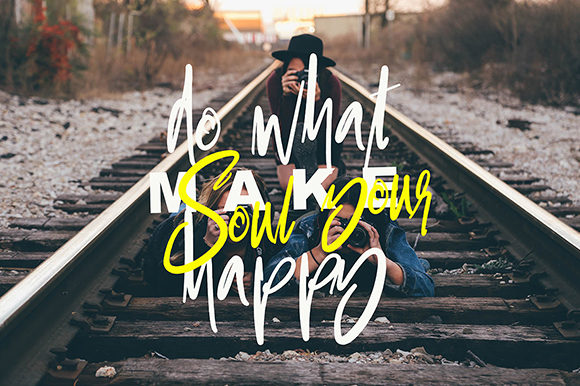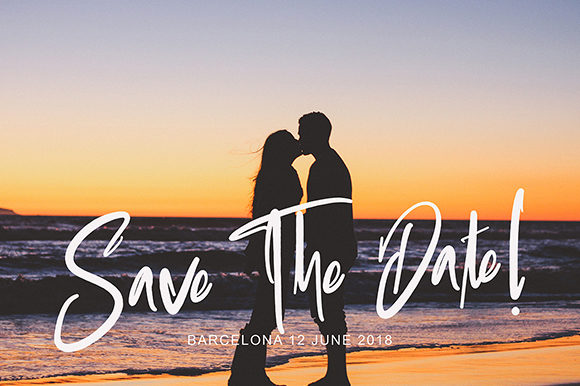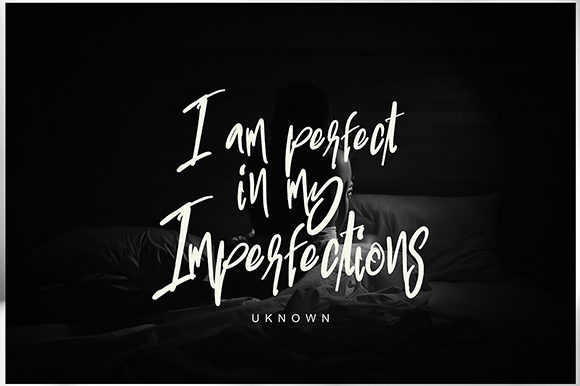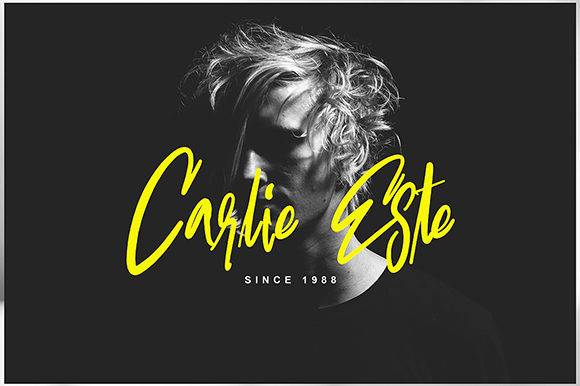
Introduction to Layla and Naila Font
Have you ever found yourself in the middle of a creative project, staring at a blank canvas or screen, searching for that perfect font to bring your vision to life? It’s a feeling we’ve all been there, and it’s precisely what makes discovering a great font so exhilarating. Today, we’re excited to introduce you to the delightful Layla and Naila Font, a lovely handwritten font with a bold twist that’s sure to elevate your design game.
What sets Layla and Naila Font apart from other design resources is its authentic feel, making it a high-quality addition to any creative project. With its unique blend of elegance and playfulness, this font is perfect for designers looking to add a touch of personality to their work. Plus, with a transparent background, it’s easy to incorporate into any design without distractions.
Key Features of Layla and Naila Font
- Unique Hand-Drawn Style: Layla and Naila Font features a beautiful hand-drawn style that adds a touch of creativity to any project.
- High-Quality Design: This font is designed with high-quality in mind, ensuring it looks great on a variety of backgrounds and in different contexts.
- Large Character Set: The font includes a large character set, including uppercase and lowercase letters, numbers, and punctuation marks.
- Perfect for Creative Projects: Layla and Naila Font is perfect for any creative project that requires a unique and high-quality font, from logos and branding to posters and more.
Honest Review: Layla and Naila Font
As a designer, I’m always on the lookout for high-quality design resources to elevate my creative projects. Recently, I stumbled upon the Layla and Naila Font, and I must say, it’s a great addition to any design arsenal.
What works well about this font is its versatility. The font is available in two weights, which makes it perfect for creating a balance between bold headings and subtle body text. The design is elegant and modern, making it suitable for a wide range of creative projects, from branding and advertising to editorial and digital design.
- ⚠️ Limited font sizes and styles available
- ⚠️ Not suitable for use in extremely large or small font sizes
Overall, I’m impressed with the Layla and Naila Font. It’s a high-quality design resource that’s perfect for designers looking for a modern and elegant font for their creative projects. While it may have some limitations, the benefits far outweigh the drawbacks, making it a great addition to any design collection.
Layla and Naila Font
To get the most out of the Layla and Naila Font, use it in combination with other design resources to create unique and eye-catching designs. Experiment with different font sizes, colors, and arrangements to find the perfect look for your project.
The Layla and Naila Font is commonly used in social media graphics, presentations, and blog posts. It’s also a great resource for creating custom typography and graphics for your brand or business.